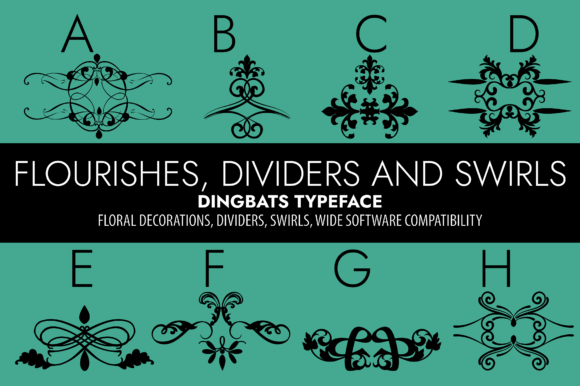
The Flourishes, Dividers and Swirls Typographic Toolkit
In the world of editorial design, where the battle for reader attention is fought on every page and screen, the details often win the war. A beautifully structured blog post, an ebook that feels like a curated artifact, or a newsletter that readers eagerly open—these experiences are built not just with words, but with visual rhythm and pacing. For publishers, bloggers, and content creators focused on crafting readable, attractive, and well-structured materials, the Flourishes, Dividers and Swirls dingbats font emerges as a masterfully designed asset for this very purpose. This font is not about the body copy you read; it’s about everything that frames, guides, and embellishes that reading experience.
What Makes Flourishes, Dividers and Swirls a Unique Dingbats Font
The Flourishes, Dividers and Swirls font belongs to the category of dingbats, a collection of ornamental glyphs and symbols rather than alphabetical characters. Its personality is inherently decorative, offering a library of scrolls, curves, lines, and intricate accents. Visual characteristics lean towards elegance and organic flow, suggesting a hand-crafted touch suitable for projects that require warmth and sophistication. For editorial work, this translates into a font with high editorial appeal, providing the subtle architectural elements that give content its visual tone and structure without overpowering the core message.
Using Flourishes, Dividers and Swirls for Blog Headers and Article Layouts
Integrating the Flourishes, Dividers and Swirls dingbats font into blog design begins with hierarchy. A single, well-placed swirl from this fonts collection can become the iconic marker for your series header, visually separating your “Weekly Inspiration” posts from your “Deep-Dive Guides.” These symbols serve as perfect, non-textual dividers between long sections of an article, offering the reader a mental pause and a visual cue that a new topic begins. They prevent the wall-of-text effect that plagues digital reading, enhancing readability by creating natural visual breaks.
Designing Magazine Covers and Ebook Titles with Flourishes, Dividers and Swirls
The cover is the first promise of value. For a digital magazine, a premium ebook, or a printable guide, the title treatment sets the entire mood. Flourishes, Dividers and Swirls provides the accent typography to elevate a simple title. Imagine a minimalist sans-serif title for your “Modern Poetry Journal” subtly underlined by a delicate flourish from this font—it instantly conveys curation and care. For chapter openers within an ebook, a larger divider from this dingbats collection can frame the chapter number, creating a consistent and recognizable visual system that readers associate with your publication’s identity.
Flourishes, Dividers and Swirls for Quote Graphics and Reader Engagement
Pull quotes are strategic anchors in long-form content. They highlight key insights and give skimmers a reason to stay. A quote graphic built with a classic serif font for the text and an ornate border from the Flourishes, Dividers and Swirls font transforms a mere excerpt into an illustrated moment. This visual treatment increases reader engagement by making important content feel special and worth remembering. Similarly, in newsletters or downloadable worksheets, using a swirl as a decorative element beside a call-to-action or a key takeaway can draw the eye and improve content retention.
Building Publication Branding with a Consistent Dingbats Library
Brand consistency across a blog, a newsletter, and accompanying printables is what turns a casual audience into a recognized community. The Flourishes, Dividers and Swirls font can become a core part of that brand identity. By selecting a specific set of three to five symbols from this fonts library—perhaps a particular divider for sections, a swirl for highlights, and a flourish for titles—you create a unique visual language. Your audience will begin to recognize your work not just by your logo, but by these recurring editorial details. This is especially powerful for independent content brands, course creators, and digital product creators selling their expertise.
Practical Editorial Applications for Flourishes, Dividers and Swirls
The use cases for this dingbats font are as wide as the pool of designs mentioned in its description. For a lifestyle blog, the flourishes can add a touch of rustic charm to recipe headers or travel diary entries. A wedding planner or coaching workbook can use the elegant dividers to separate client questionnaire sections, elevating a functional document into a premium experience. A digital magazine focused on art or culture might employ the swirls as abstract graphic elements in margins or alongside captions, reinforcing a creative ethos. In every case, the font supports the mood without requiring complex illustration skills.
Font Pairing and Readability Considerations for Editorial Use
As a display asset, Flourishes, Dividers and Swirls is best paired with highly readable fonts for body copy. A clean sans-serif like Helvetica or Open Sans for online articles, or a classic serif like Garamond or Georgia for ebooks and print materials, creates a balanced typographic system. The dingbats provide the decoration; the paired font ensures comfortable reading. It’s crucial to test these symbols in their final formats: ensure they render clearly in PDF exports, remain distinct on mobile layouts, and print without loss of detail if used in physical guides or planners. Their role is complementary, so they should not interfere with the legibility of the core text.
Ultimately, the Flourishes, Dividers and Swirls dingbats font is a toolkit for thoughtful design. It answers the editorial need for structure and beauty in a format that is endlessly reusable and adaptable. By weaving these symbols into your headers, covers, quotes, and branding, you move beyond basic formatting to create content that feels intentionally crafted. For the audience of bloggers, publishers, and creators who value both substance and style, this font has the potential, as its description promises, to bring each of your creations a layer of mastered design that readers will not only read but remember.